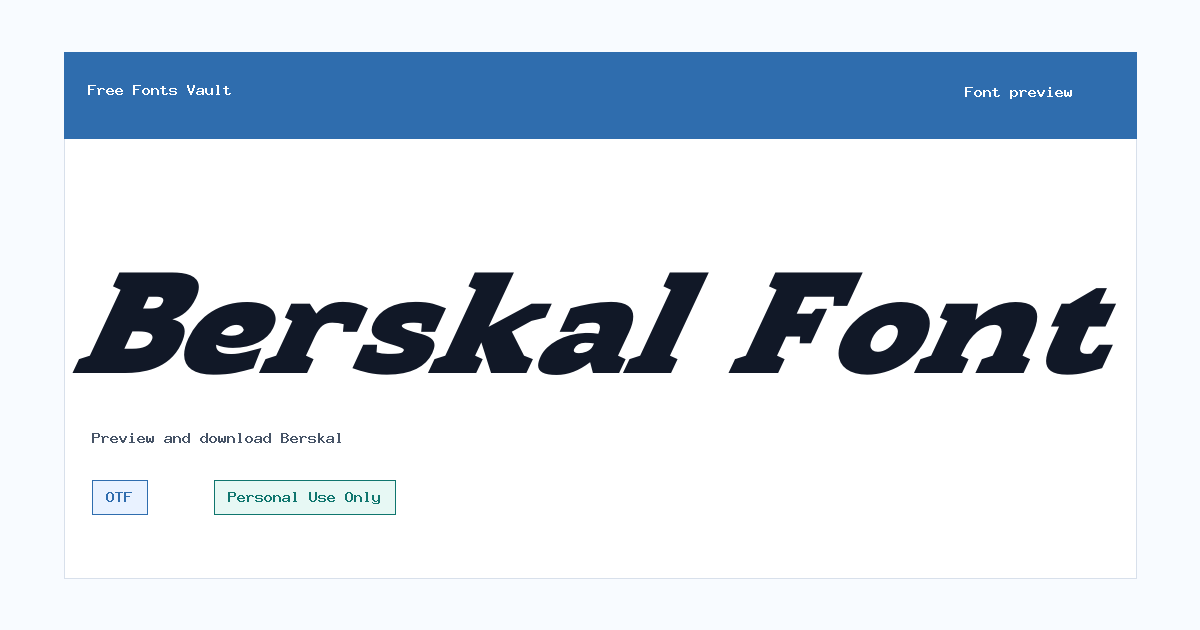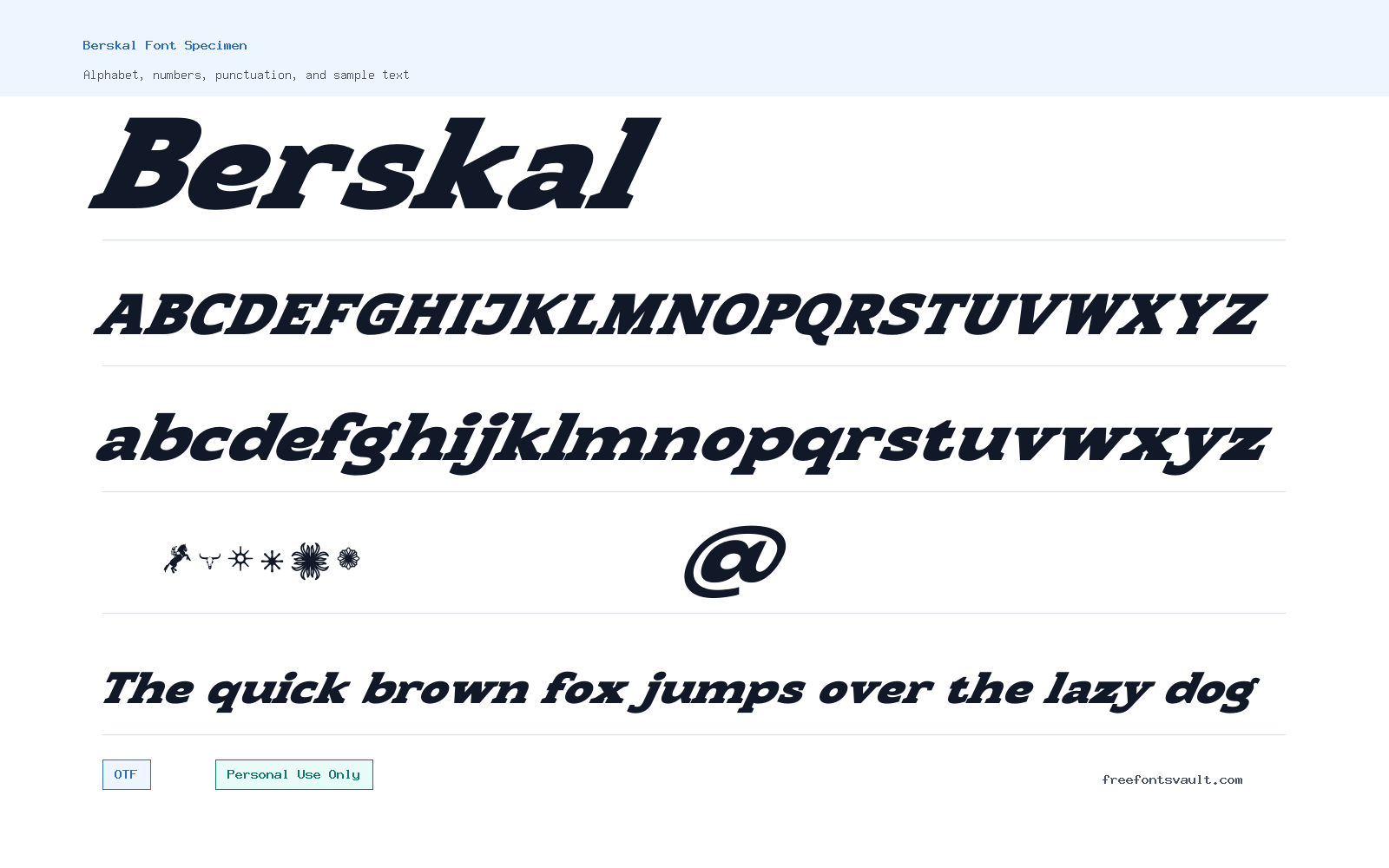
Berskal
- Designer Putu Dody Permana
- Foundry Hishand Studio
Berskal is a serif font family credited to Putu Dody Permana of Hishand Studio. The downloadable file on this page is the regular OTF version for personal-use projects, making it useful for previewing the style before deciding whether it fits your design.
About Berskal
Berskal is presented as a serif font, so visitors should expect a typeface with the more structured, textural feel associated with serif letterforms rather than a plain sans serif look. Since the available file is a regular weight, it is best tested first in titles, short headings, quotes, invitations, mockups, and other places where a single style can carry the design without needing a full family of weights. Use the preview box to check how the capitals, spacing, punctuation, and numbers behave with your own wording, because those details often decide whether a serif font works for a specific layout.
For practical use, keep Berskal to short or medium text until you have checked readability at the size you need. A display-style serif can look strong in a poster title or social graphic but may feel too distinctive for dense body copy. Try it with your exact phrase, then compare it at small, medium, and large sizes. If the project needs long paragraphs, pair it with a simple, neutral text font and let Berskal handle the headline or accent text. The download is an OTF file, which is widely supported in modern design apps and operating systems.
- Serif font family with a regular style available for preview and download.
- Single regular variant, useful for testing headings, names, titles, and short display text.
- Personal invitations, quote graphics, and non-commercial poster drafts.
- Headline tests, title mockups, mood boards, and branding concept previews.
- Short text settings where a serif voice is wanted without using multiple weights.
Who designed Berskal?
Berskal is credited to Putu Dody Permana, with Hishand Studio listed as the foundry.
What kind of projects should I try Berskal in?
Start with short personal-use text such as names, invitations, quote graphics, poster titles, or design mockups. Test readability before using it for longer text.